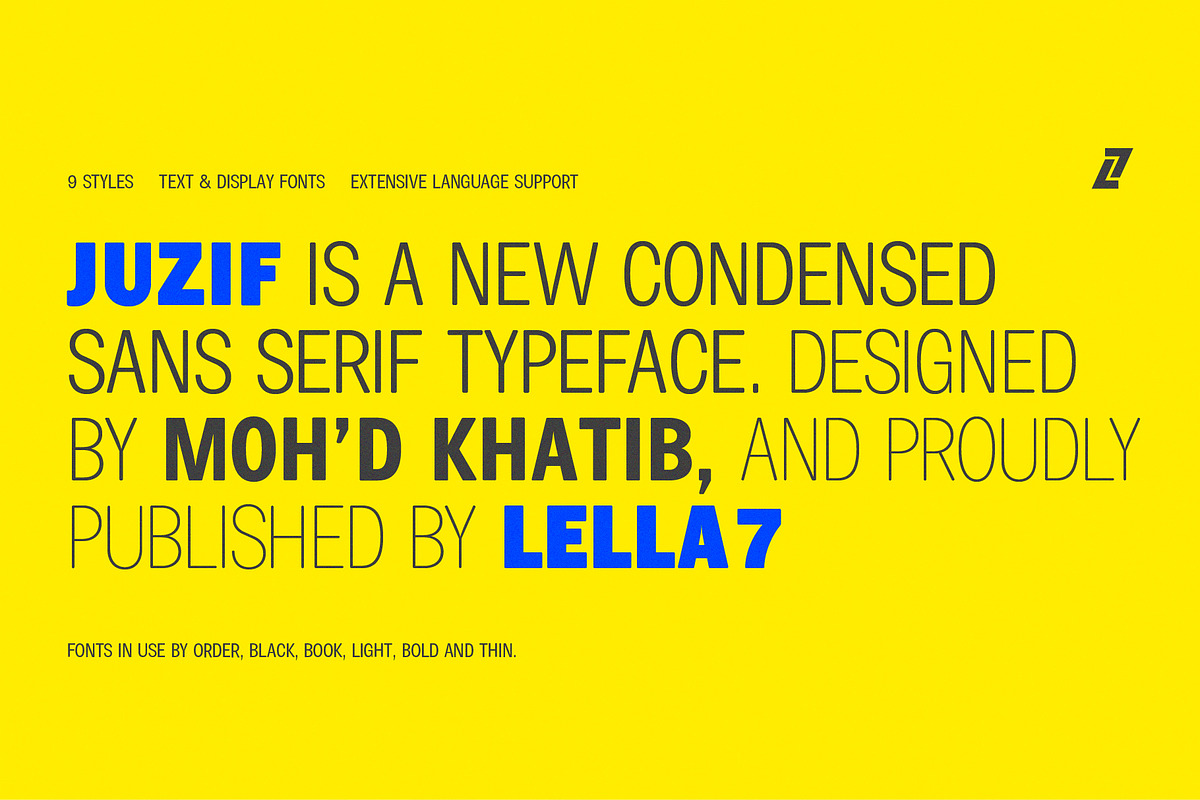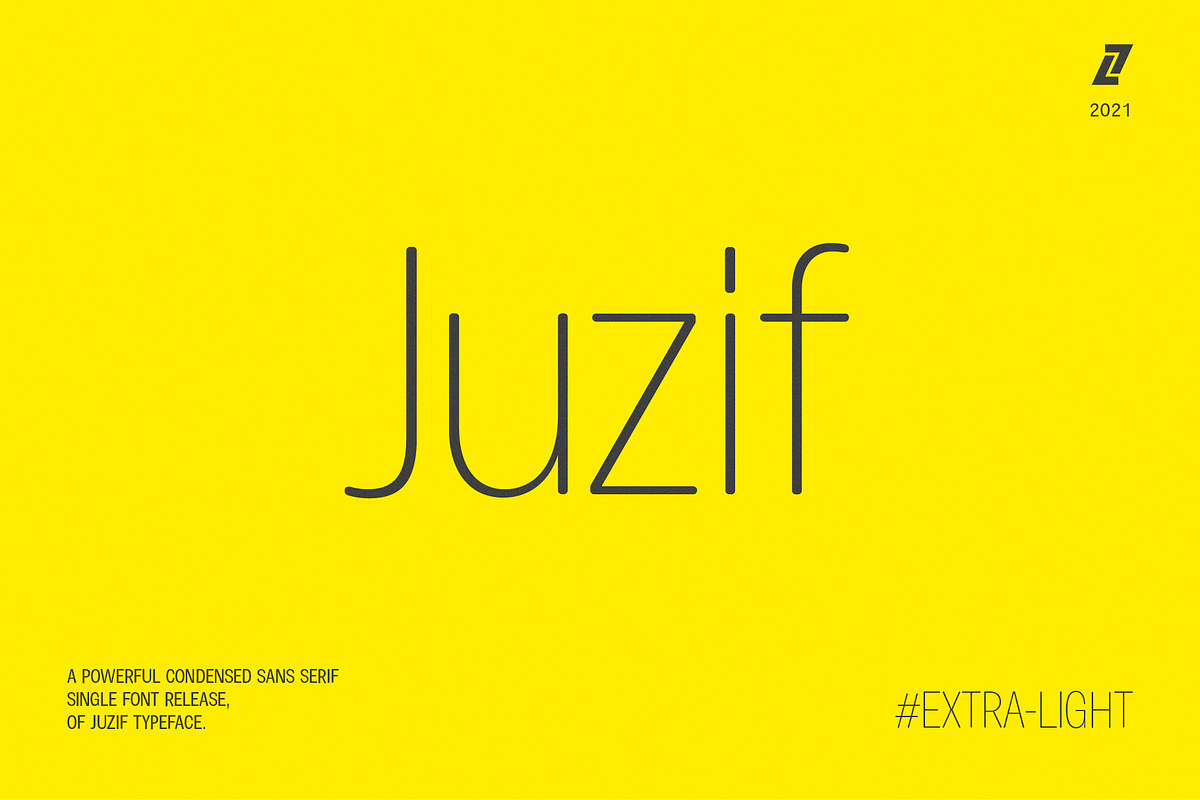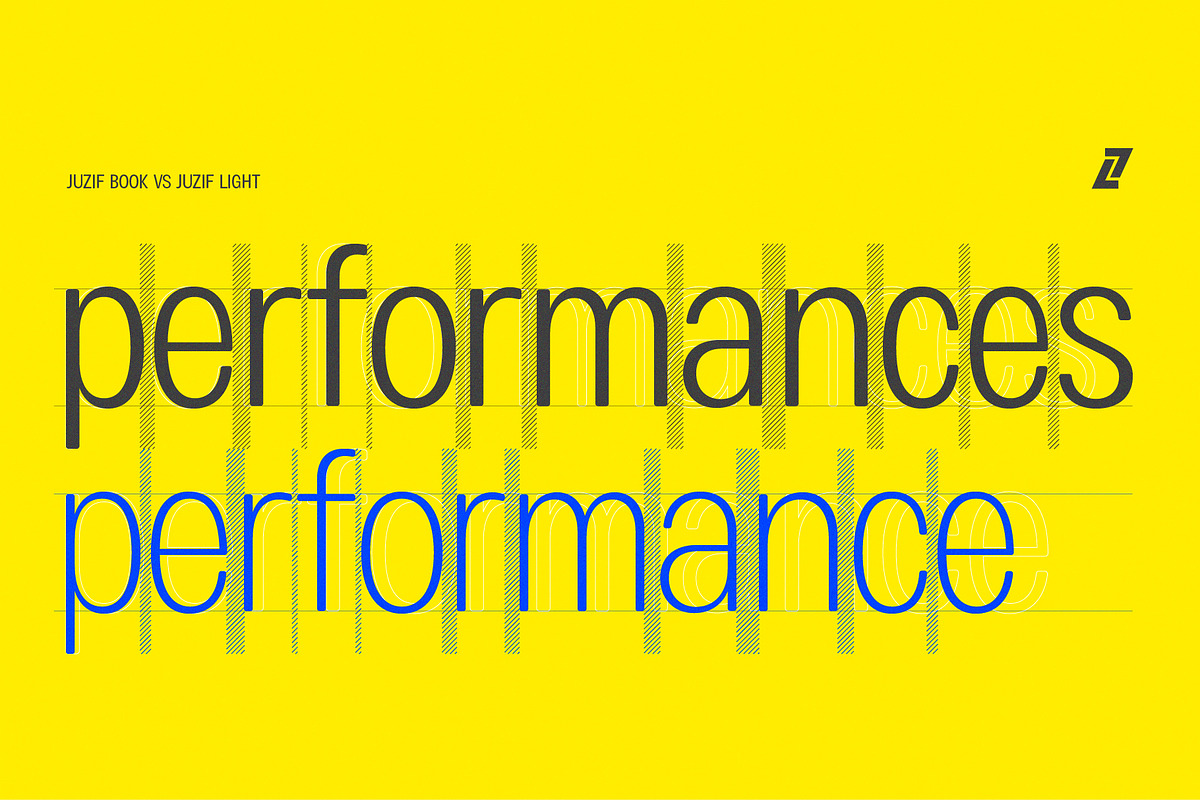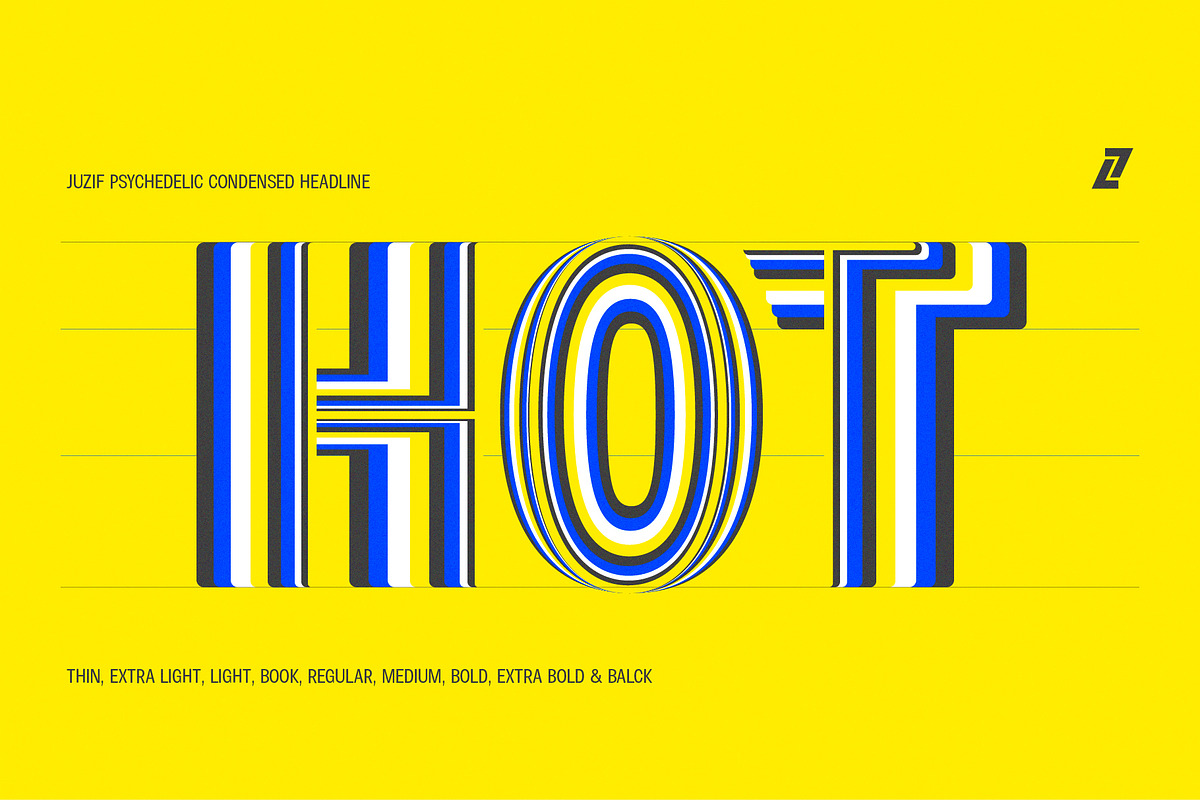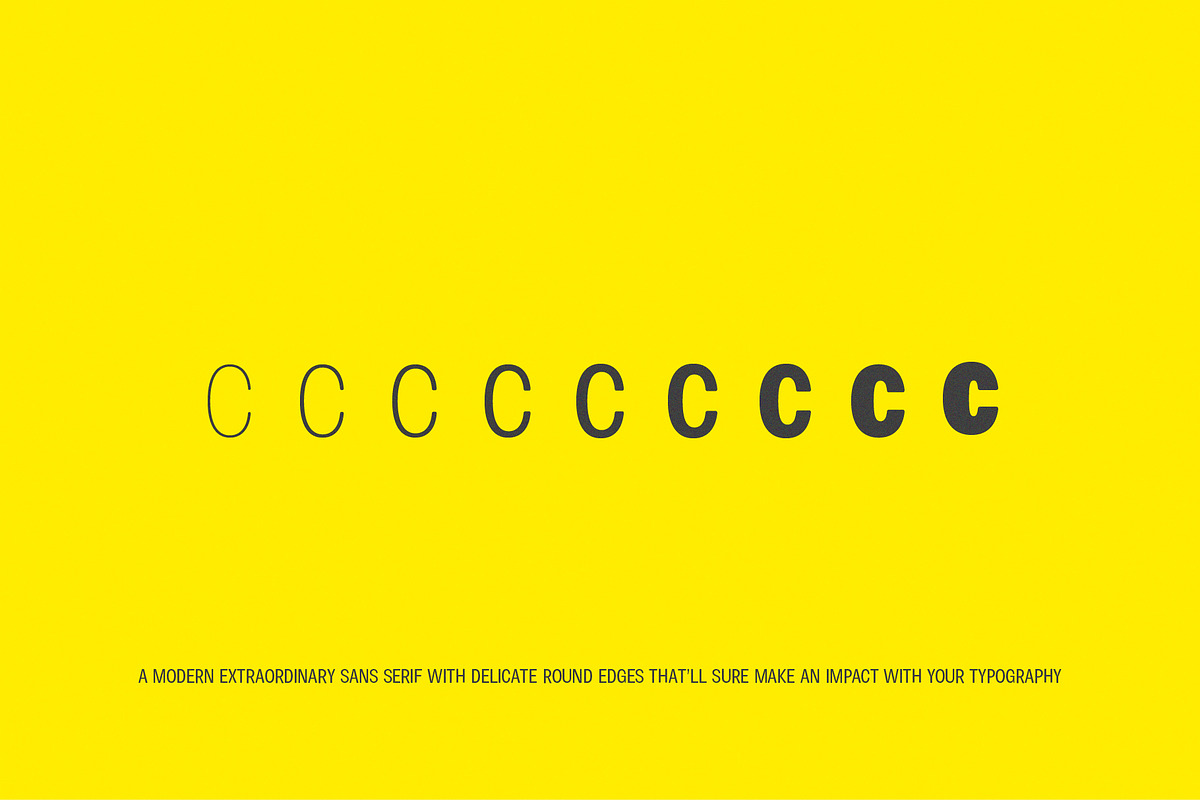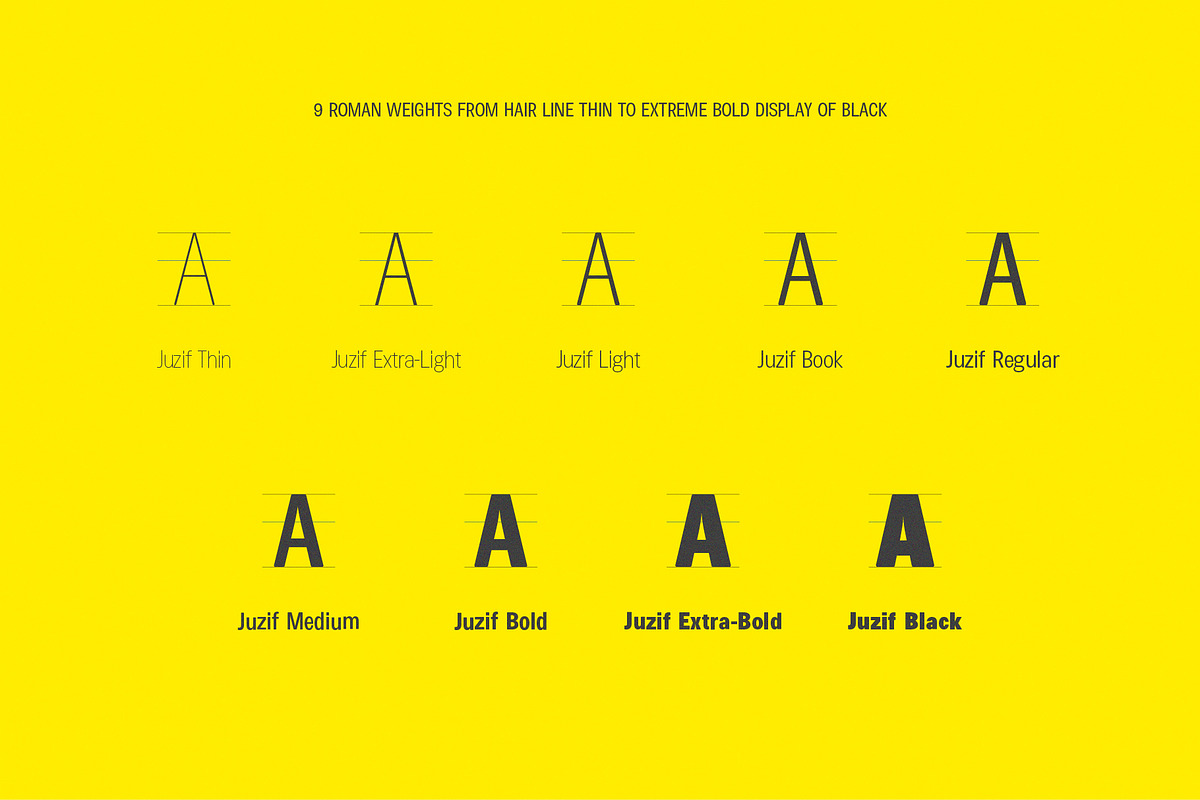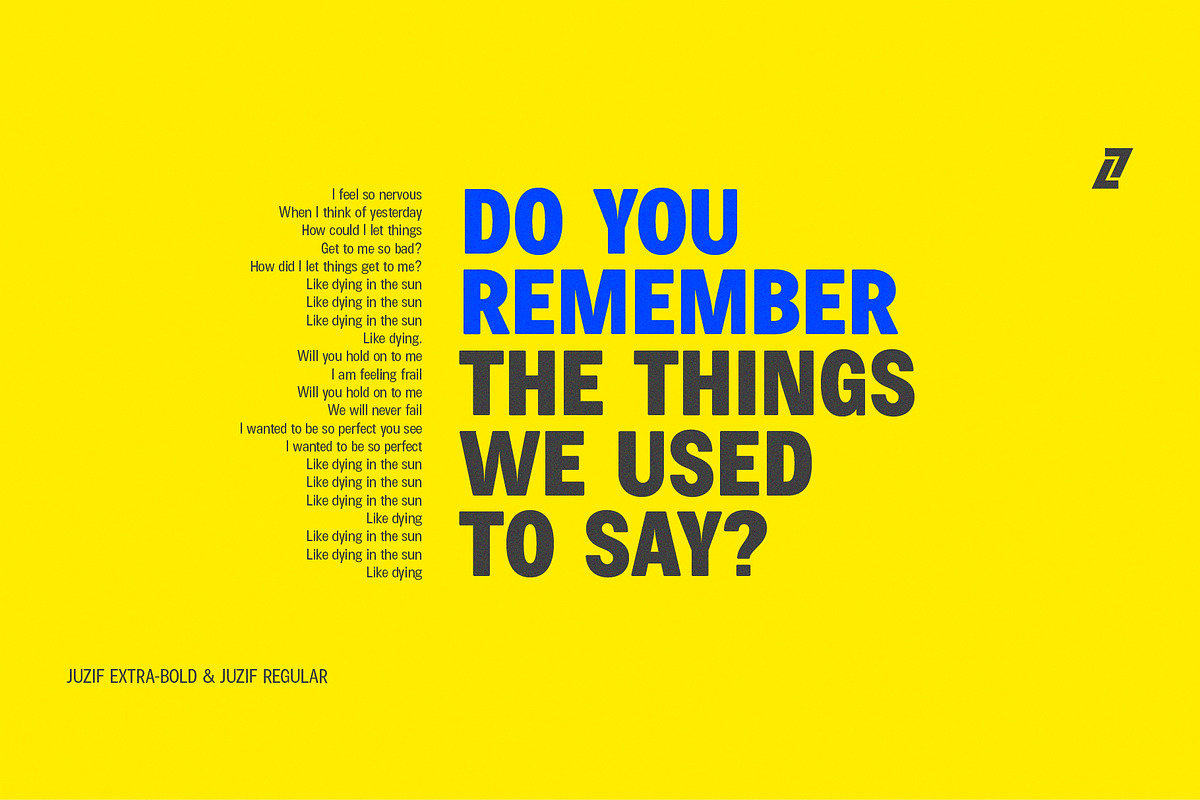
Juzif Extra-Light (Single)
Juzif is a powerful condensed typeface, and this is a single release of its Extra-Light weight.
A modern extraordinary sans serif with delicate round edges that’ll sure make an impact with your typography. The complete family offers 9 weights from hairline thin to display black, this variety makes it a very dynamic typeface achieving both a modern and an old school look.
Juzif is great for all sorts of typography uses, brochures, or any heavy text setting, its condensed nature allows you to sneak in more than you would with a regular width typeface, it’s awesome for social media, print or on-screen it will make your copy stand out.